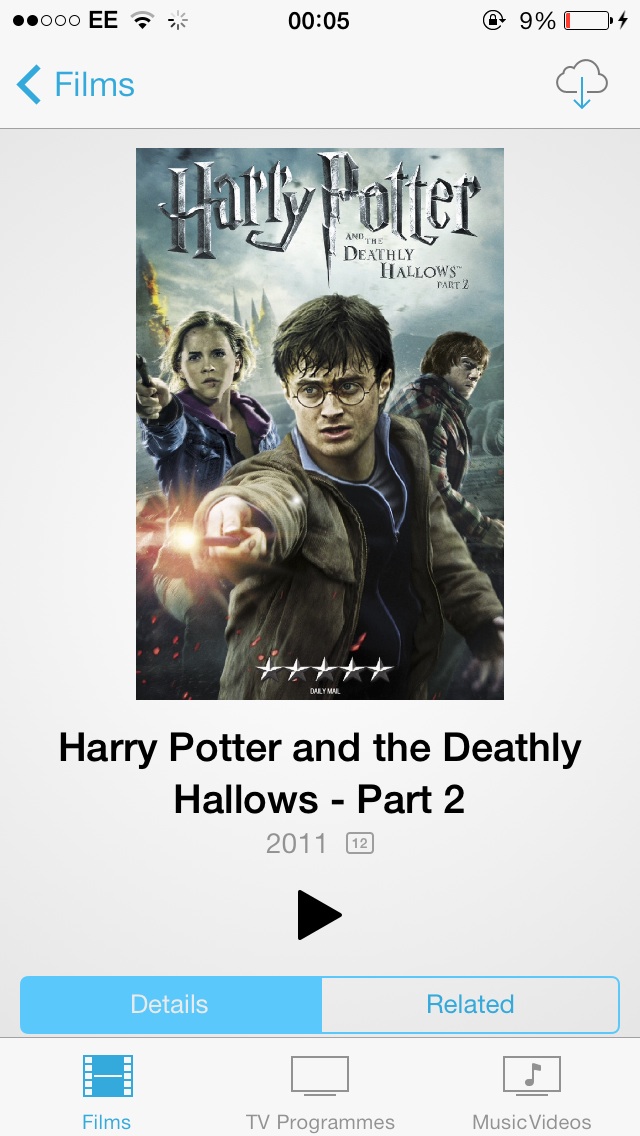
I still loathe the GUI, at least the bugs I've reported, light fonts, too bright/low contrast, etc are fixed.
LOVING the keyboard!!! I'm sure it's been covered, but finally, black with light text, much easier than before.
I have a great idea! Let's take a sleek new looking OS, have modern thinner font, and then take it away to give it crappy blocky font from iOS 6! YES!
I hope they bring back the thinner font, or at least the option to choose your font system wide. I've already been on the fence and thinking of switching to windows mobile or android. These sort of horizontal changes aren't helping their cause.
You can :D go in settings/ general/ accessibility and then you should see bold text in green just turn it off :D
It's a shame for the font.
It's true that thicker font is more readable and is better in the apps, but on the lock screen the helvetica neue ultra light looked soooo much better and elegant...
Hpe they revert back or , as a many said it, have the option to select the font.
I think the bolder font is a step in the right direction; the Ultra Light version was hard to read at times.